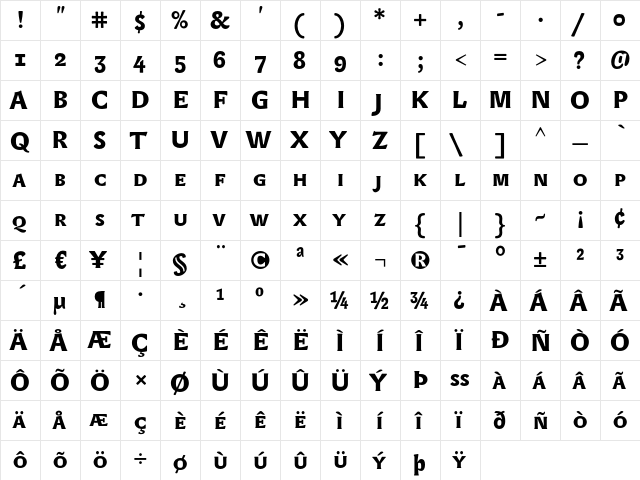
Lexon SC + OSF Bold
Design Context for Lexon SC + OSF Typeface
Lexon SC + OSF takes a measured approach to typography — its balanced proportions and neutral character make it a reliable workhorse for both digital and print work. Its bold stroke weight gives it real presence on the page.